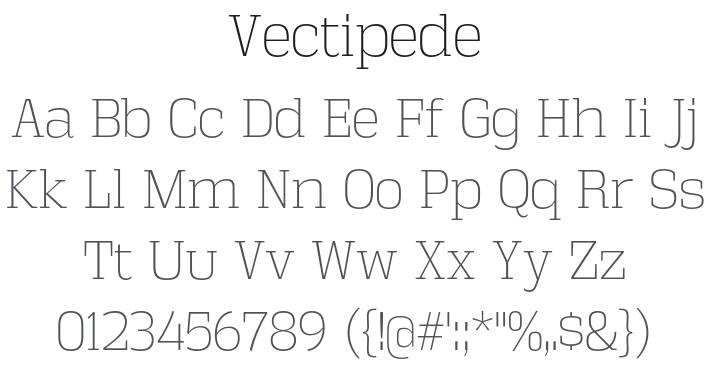
Vectipede Font Family
About Vectipede
Vectipede is a contemporary slab serif typeface built for clarity, strength, and adaptability. Its super-elliptical forms strike a balance between technical precision and human warmth, making it as effective in a research journal as it is on a product package or company logo.